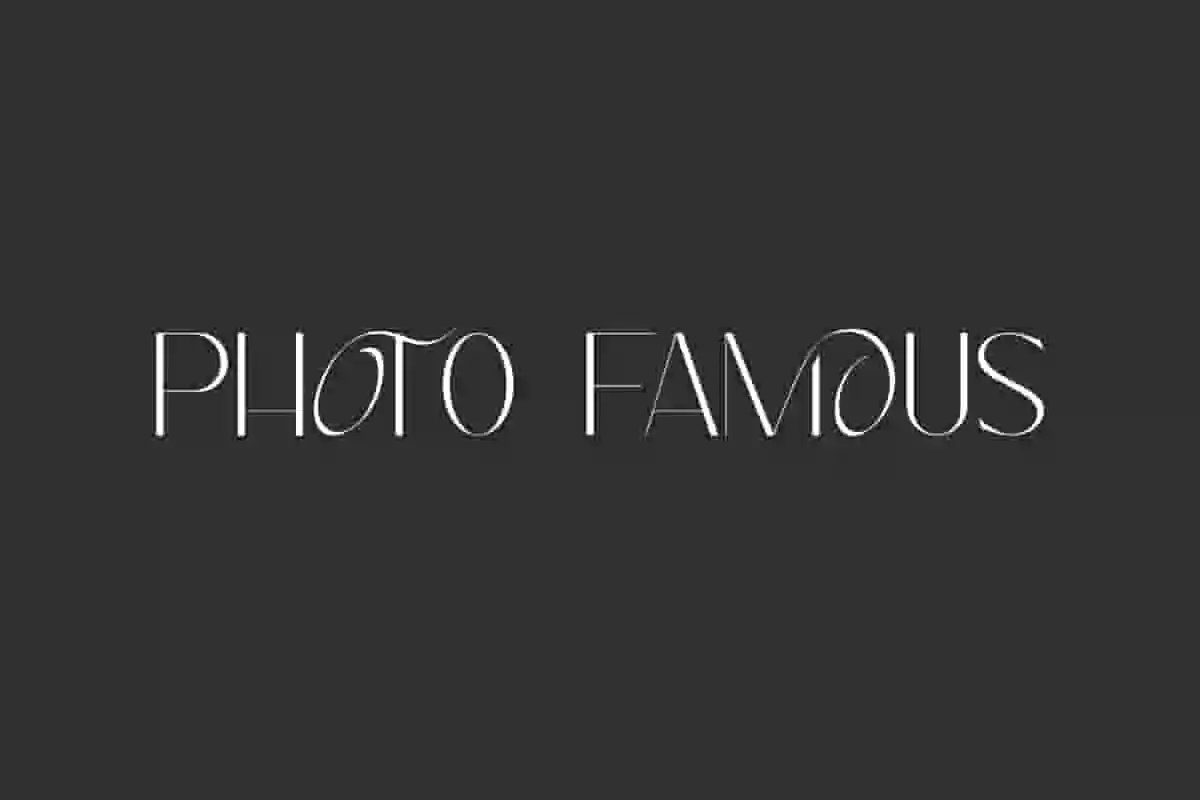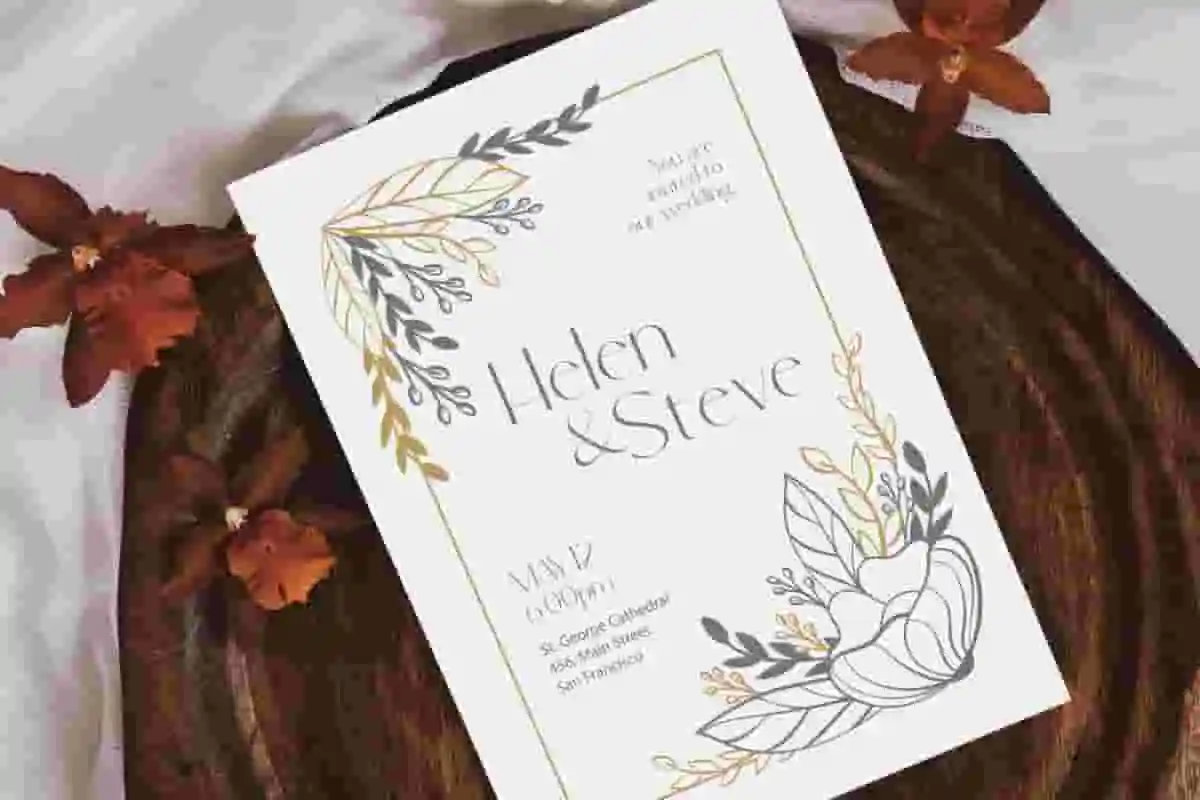
Photo Famous Font is a flawless casual sans serif font inspired from some photography and art projects. The sleek letterforms and artistic curve variations give an exclusive impression. This font will be perfect for any projects, can be used for advertisement, brand image, custom design, invitation, label, layout design, quotes, stationery, template design, website, and more!
Photo Famous Font includes full set of Uppercase and Lowercase Basic Characters, Numerals, Punctuation, Symbol, and Ligature character. Making it a perfect choice for a variety of fields, such as accessories and jewelry, beauty product, event or wedding organizer, fashion, florist, furniture, real estate, spa salon, etc.